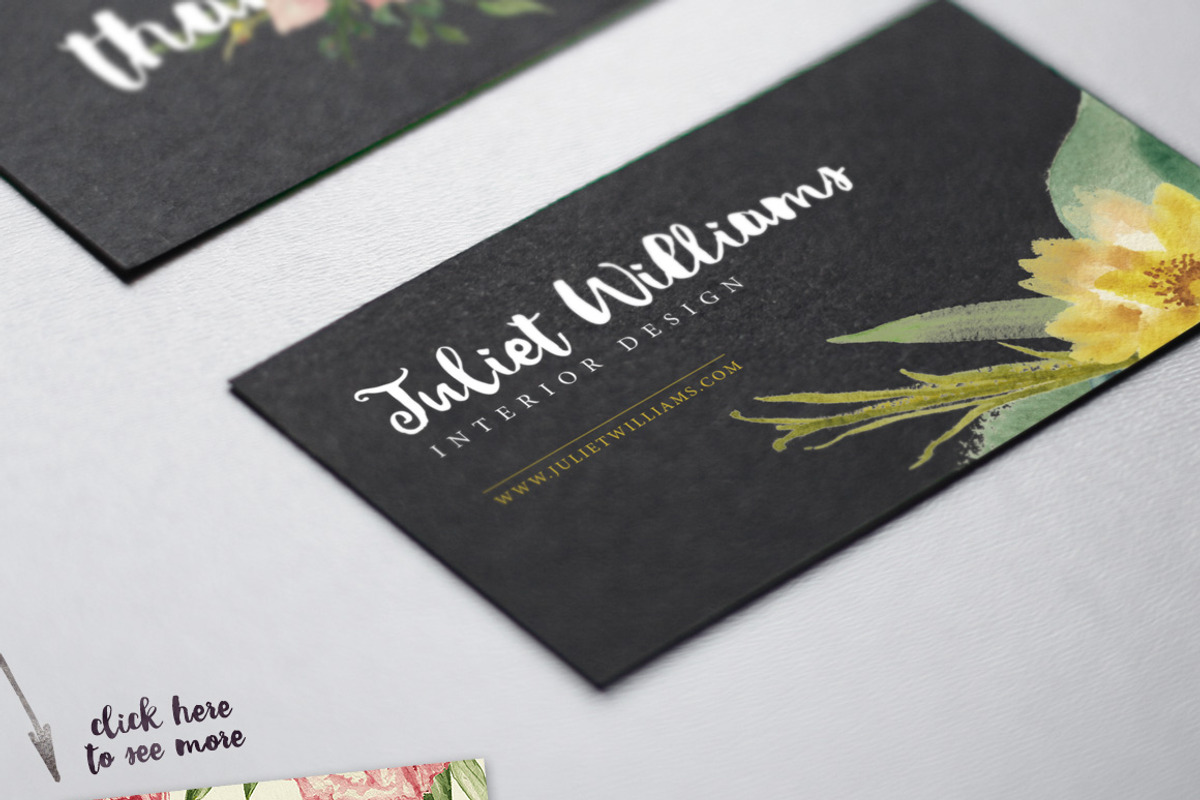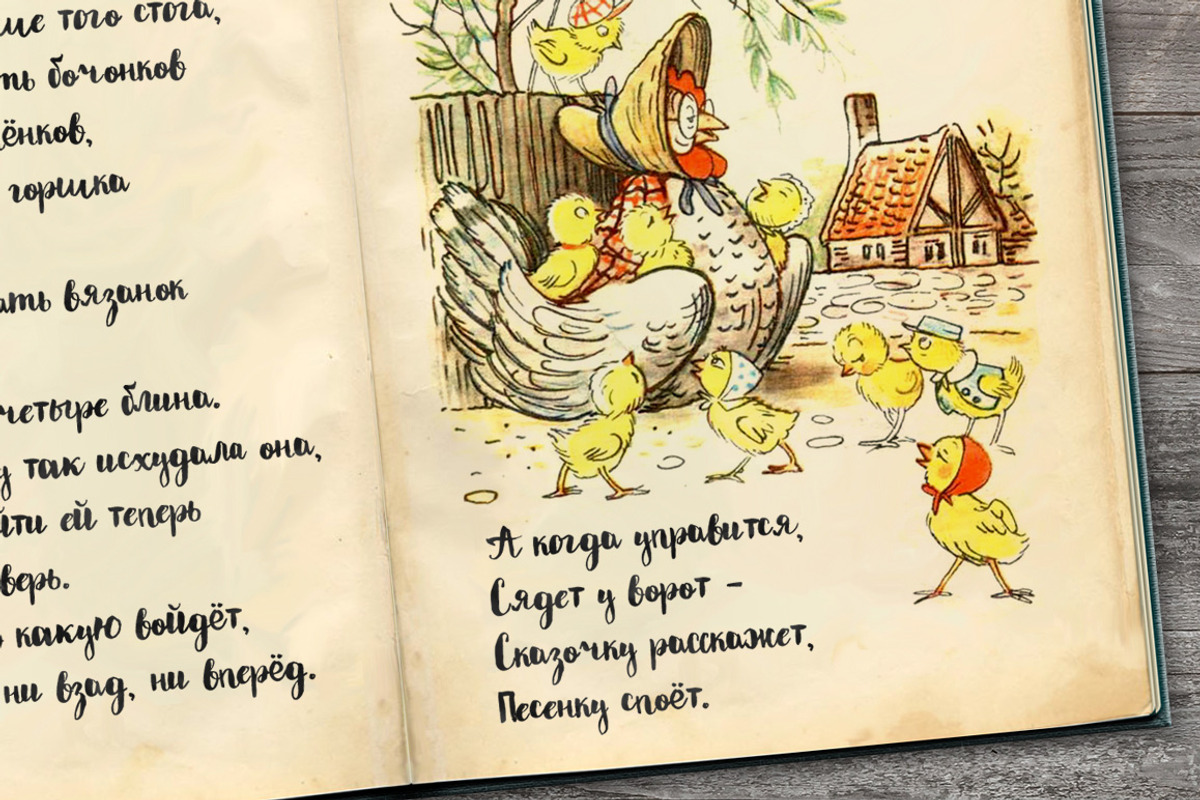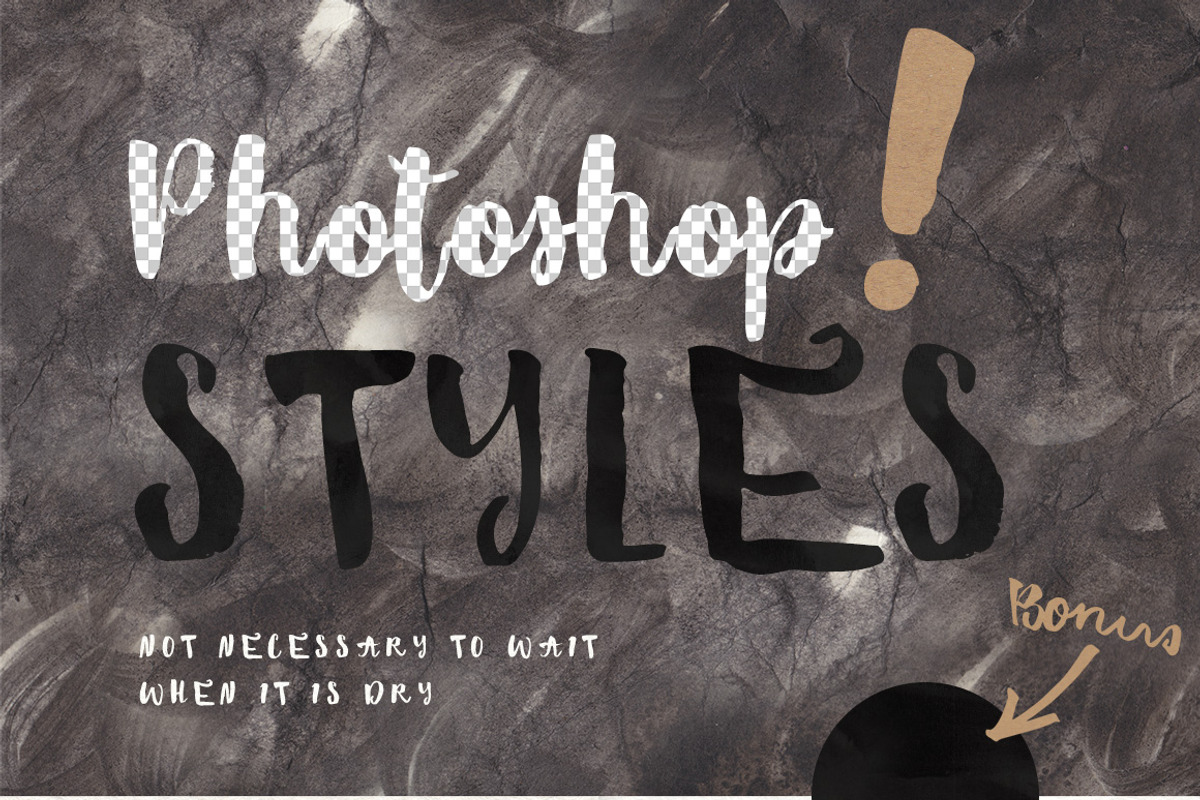
Miletta typeface with ligatures
Miletta typeface with ligatures by Blessed Print is a font selected for branding, posters, packaging, typography.
- This hand painted font is perfect for:
- logo
- prints
- quotes
- stationary
- decoration
- I did plenty of ligatures and alternates, so your creative job will be fun and lovely.
Why Miletta typeface with ligatures is worth a look
Miletta typeface with ligatures by Blessed Print fits naturally into Branding, posters, packaging, typography.